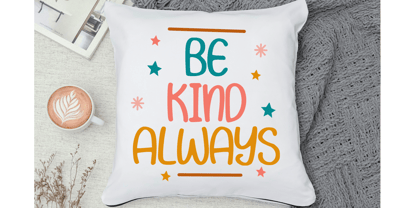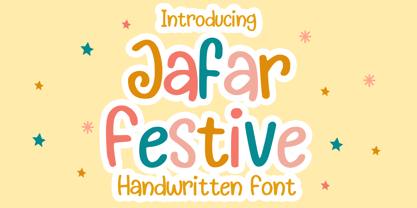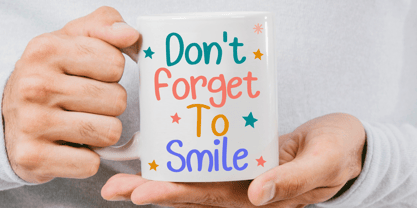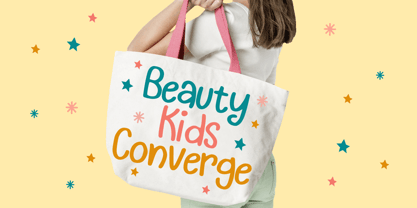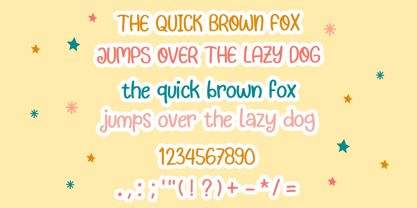
Jafar Festive
The Jafar Festive Font Family was designed by Gabriel Valentinus and published by Mvmet. Jafar Festive contains 1 styles. More about this family
Introducing Jafar Festive, a delightful and whimsical comic font that brings vivacious character to your design projects. This versatile typeface can elevate a wide range of creative ventures, adding a distinct charm to sticker collections, trendy t-shirt graphics, captivating logos, eye-catching magazine covers, engaging comic scenes, and lively cartoon sketches. Whether you're looking to enhance branding, web design, or editorial content, Jafar Festive infuses your work with an aura of unparalleled coolness, making your daily typing an exciting experience!